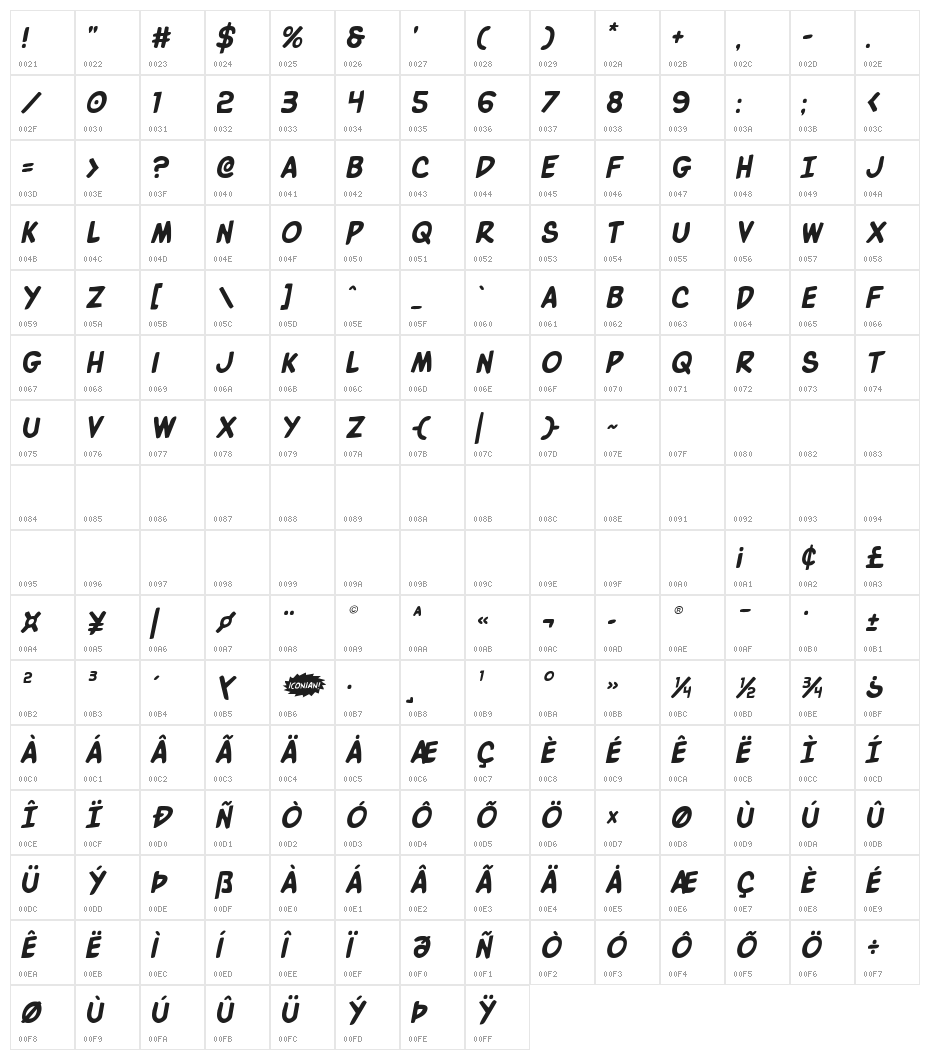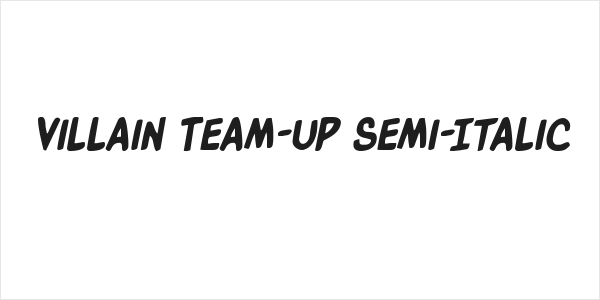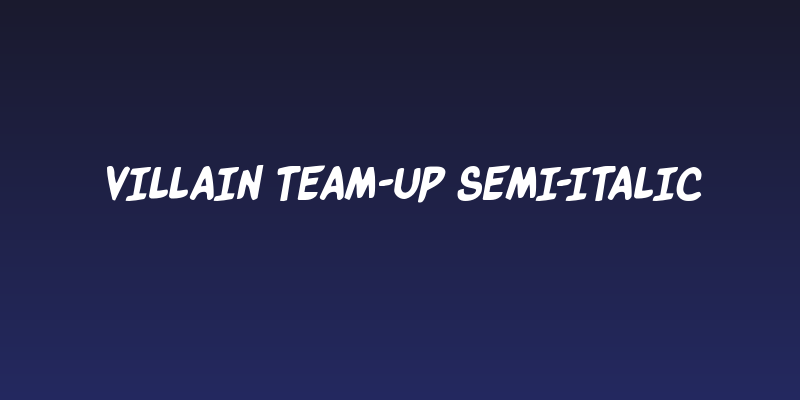
Villain Team-Up Semi-Italic Font
Villain Team-Up Semi-Italic Description
This font features a bold and dynamic style with a semi-italic slant, giving it a sense of motion and energy. The characters are thick and rounded, with a playful yet assertive appearance. The uppercase and lowercase letters maintain a consistent style, with smooth curves and slightly exaggerated forms that enhance readability. The numerals and special characters are equally bold, ensuring they stand out in any design. This font is ideal for projects that require a strong visual impact while maintaining a friendly and approachable tone.
| Proposed Projects | Perfect for comic book titles, posters, branding, and any design needing a bold, energetic look. |